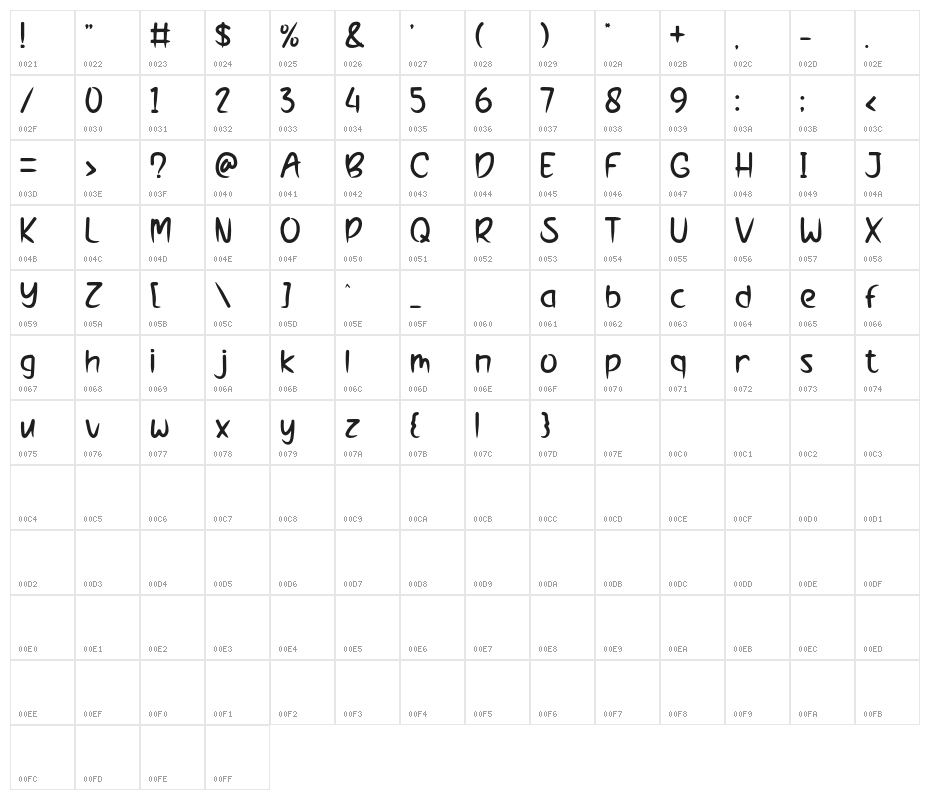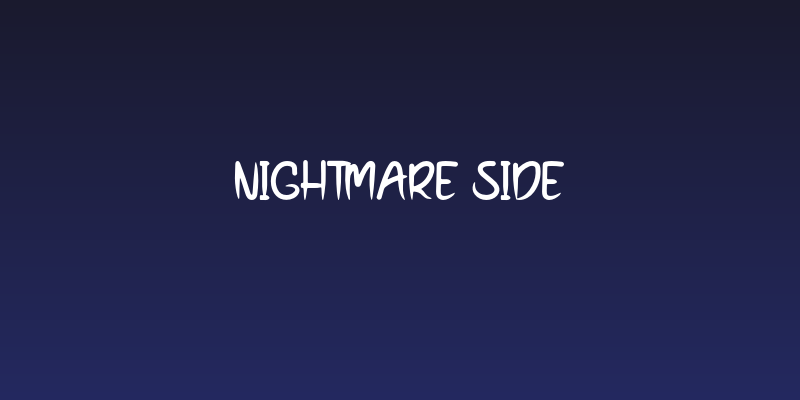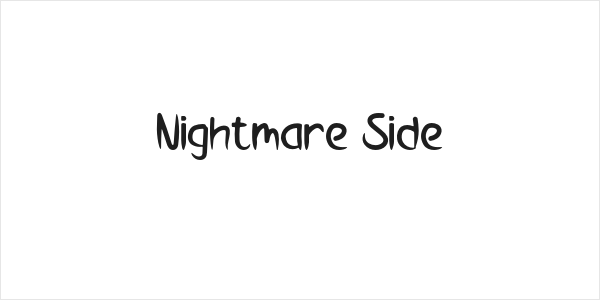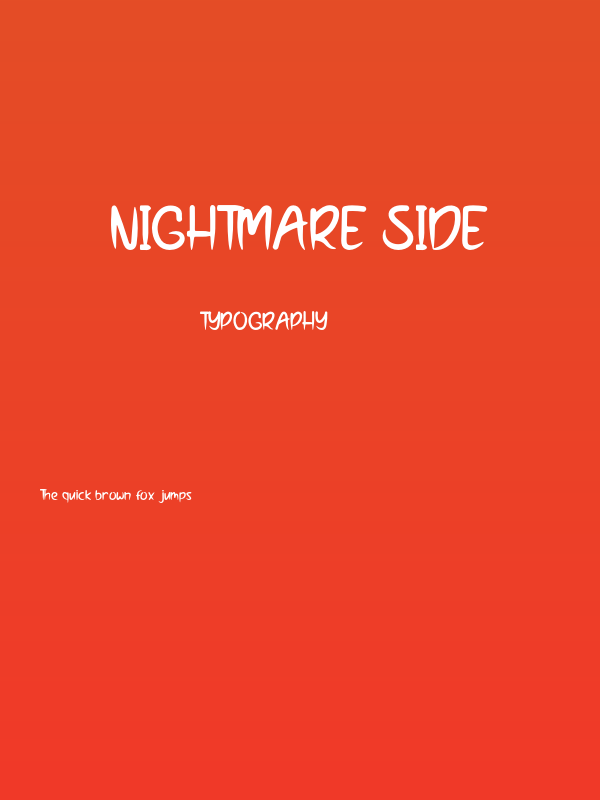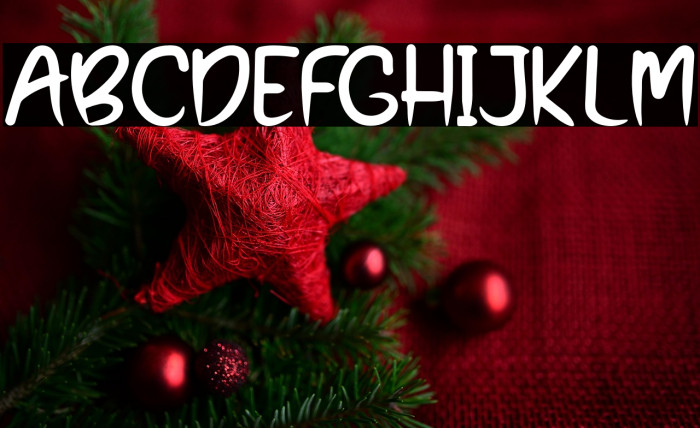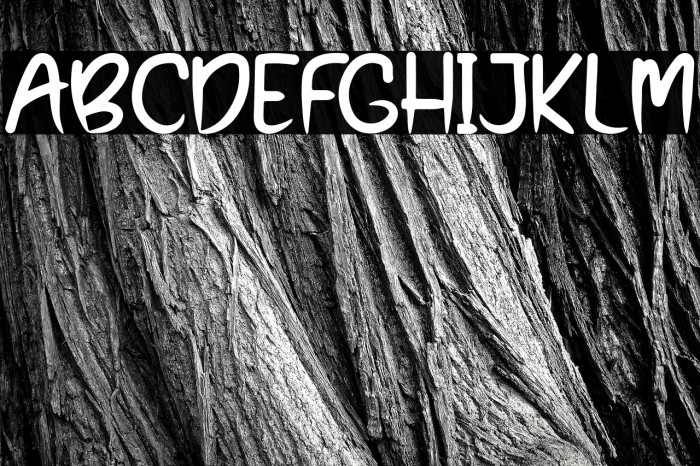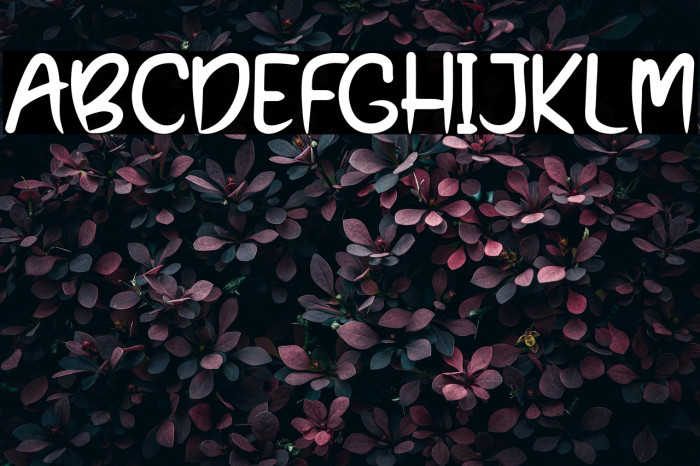
Nightmare Side Font
This font features a playful and energetic style with a handwritten appearance. The letters are bold and slightly irregular, giving a casual and informal feel. The strokes are thick and rounded, creating a sense of friendliness and approachability. The uppercase and lowercase letters maintain a consistent style, with a slight slant that adds to the dynamic look. The numbers and special characters are designed to match the overall aesthetic, ensuring a cohesive appearance across all text. This font is ideal for projects that require a fun and lively touch, such as children's books, party invitations, or playful branding.